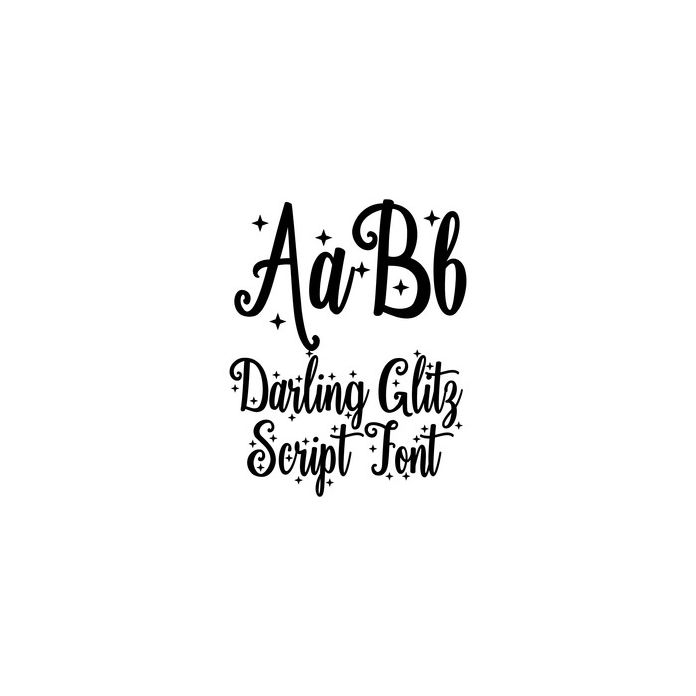
darling glitz font
This script font is truly beautiful! It welds well making it perfect for vinyl and heat transfer projects. Includes international characters.